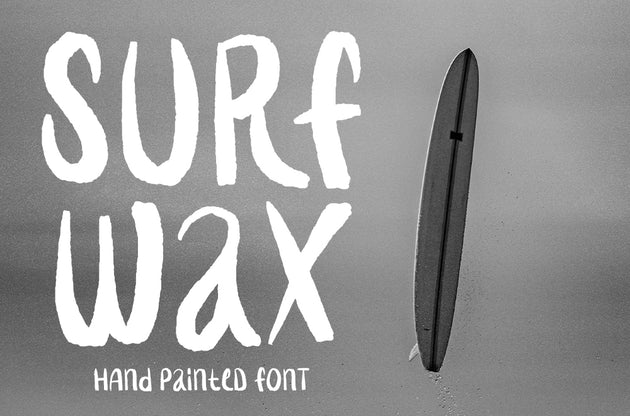
Surf Wax font is a hand drawn font. This OTF font is features upper case and lower case letters that share the same x-height, allowing them to work together in unique combinations.
Surf Wax is a vector OTF font that is infinitely scalable. It still possesses the nuance of a hand lettered font, while working just like any other font in your font library.